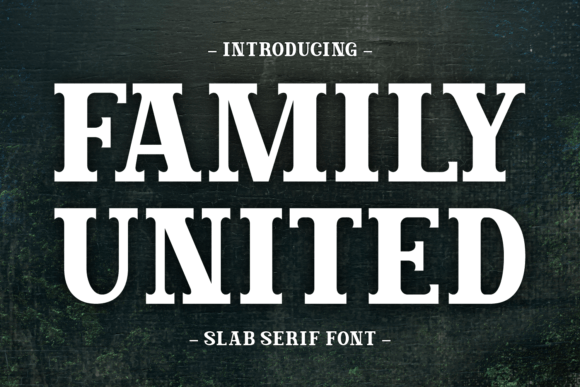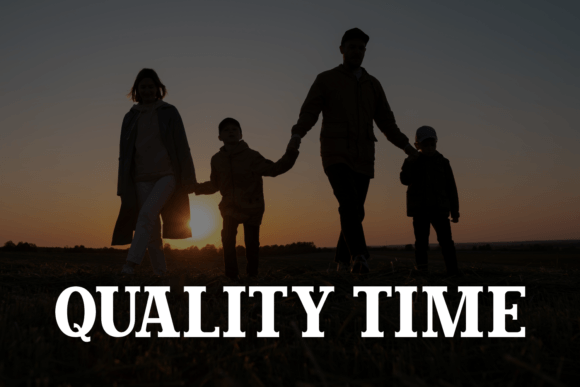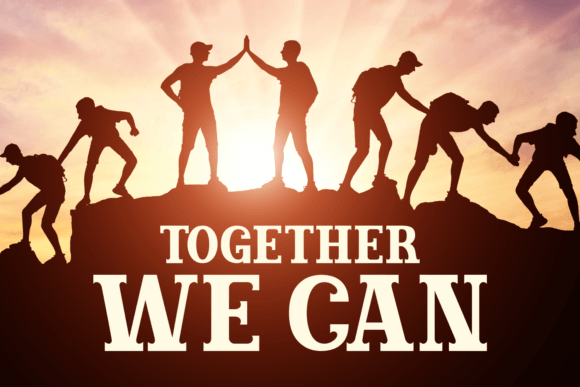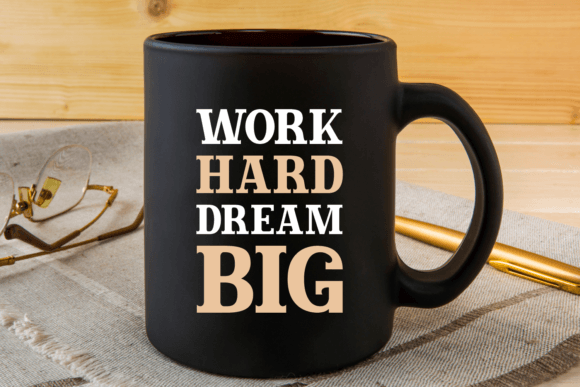
Family United Font
About the Family United Font
Explore the possibilities with Family United Font, a font that offers both beauty and functionality. Family United  is a bold and assertive slab serif font. No matter the topic, this font will be an incredible asset to your fonts’ library, as it has the potential to elevate any creation.
Family United’s bold, slab-serif design excels in headlines, short impactful statements, and branding applications where a strong, assertive presence is desired. It works particularly well for posters, logos, and packaging for products emphasizing quality and reliability. However, its weight and strong character make it less suitable for body text or long paragraphs, as readability suffers at smaller sizes. Avoid using it for user interfaces (UI) or situations requiring high levels of legibility.
To complement its assertive nature, consider pairing Family United with a clean sans-serif like Open Sans or Lato for body copy, providing a strong contrast in style yet maintaining a cohesive visual hierarchy. For a more sophisticated feel, a delicate script font such as Allura could add a touch of elegance, while a geometric sans-serif, like Montserrat, offers a modern and balanced counterpoint.
Its core personality is confident and authoritative, making it ideal for brands projecting strength, tradition, or a premium image. Think established corporations, heritage brands, or products requiring a sense of authority and stability.
Family United Font Usage Examples
Family United Font Example